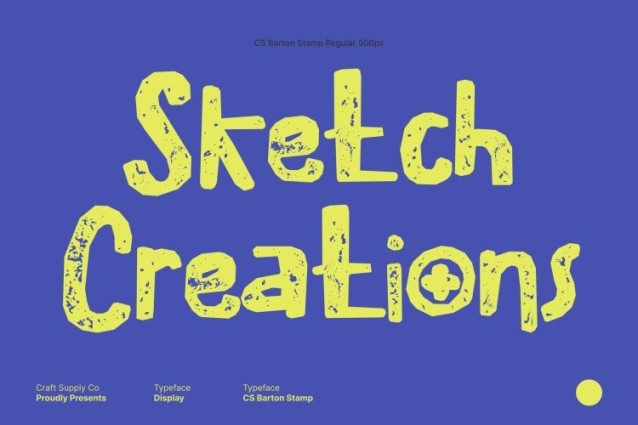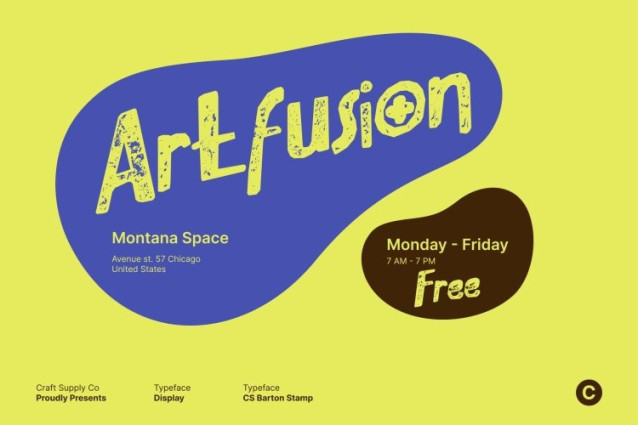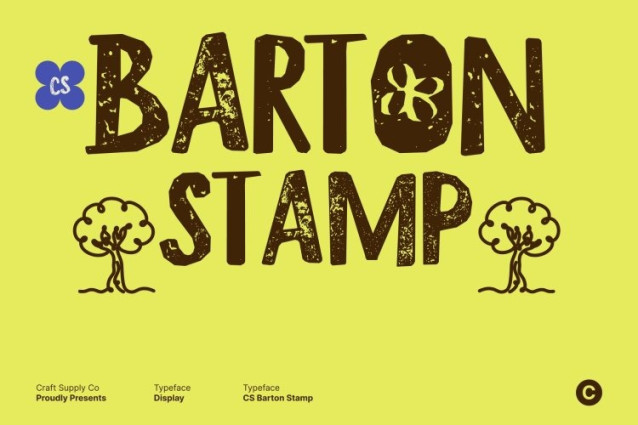
CS Barton Stamp Font
CS Barton Stamp Font This captures the lively spontaneity of marker strokes, delivering a playful handwritten display font with vibrant character. Its bold yet relaxed forms come alive with casual energy. The stamp effect adds textured edges and subtle imperfections, giving each letter a vintage, hand-pressed feel that evokes the charm of old-school signage and artisanal print.
Floral Inspiration with Feminine, Vintage Character
Inspired by natural floral curves, this font carries a soft, slightly feminine touch. The stamped texture enhances its warmth and delicacy, while the distressed, handcrafted finish introduces an artistic, retro personality. The result is a unique balance of charm, authenticity, and expressive boldness reminiscent of traditional hand-lettered designs.
Perfect for Branding, Lifestyle, and Creative Projects
This font thrives in branding, lifestyle graphics, social media, and artisanal projects. Its textured, handwritten style creates a personal, approachable connection with audiences, making it ideal for designs that want to feel youthful, creative, and thoughtfully crafted.
Modern Versatility with a Vintage Twist
Playful yet sophisticated, this font adapts seamlessly to both digital and print applications. The combination of bold marker energy and textured stamp artistry makes it perfect for expressive headlines, quirky logos, invitations, or captions, infusing every project with vintage character, artistic texture, and handcrafted charm.